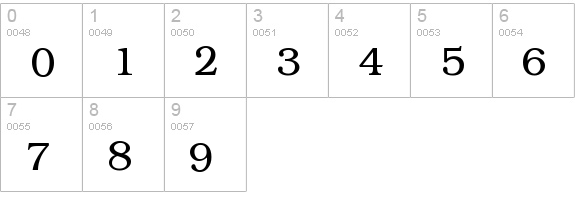
BookFont Font Details
BookFont is a versatile and elegant font that is perfect for a wide range of design projects. Its classic yet modern style makes it suitable for both professional and creative purposes. With its clean lines and readability, BookFont is ideal for body text, headlines, logos, and more. The best part is that BookFont is absolutely free to download! You can get your hands on this amazing font at FontsMarket.com without spending a dime. Whether you are a designer looking for a reliable font or just someone who appreciates quality typography, BookFont is sure to meet your needs. So why wait? Download BookFont today and elevate your designs with this exceptional typeface.